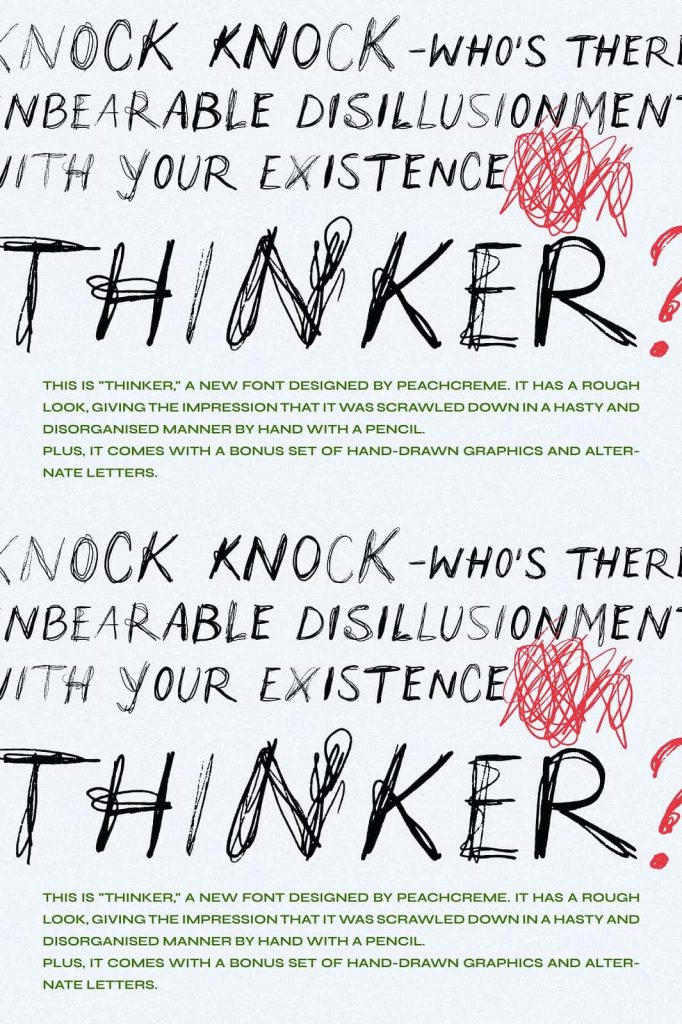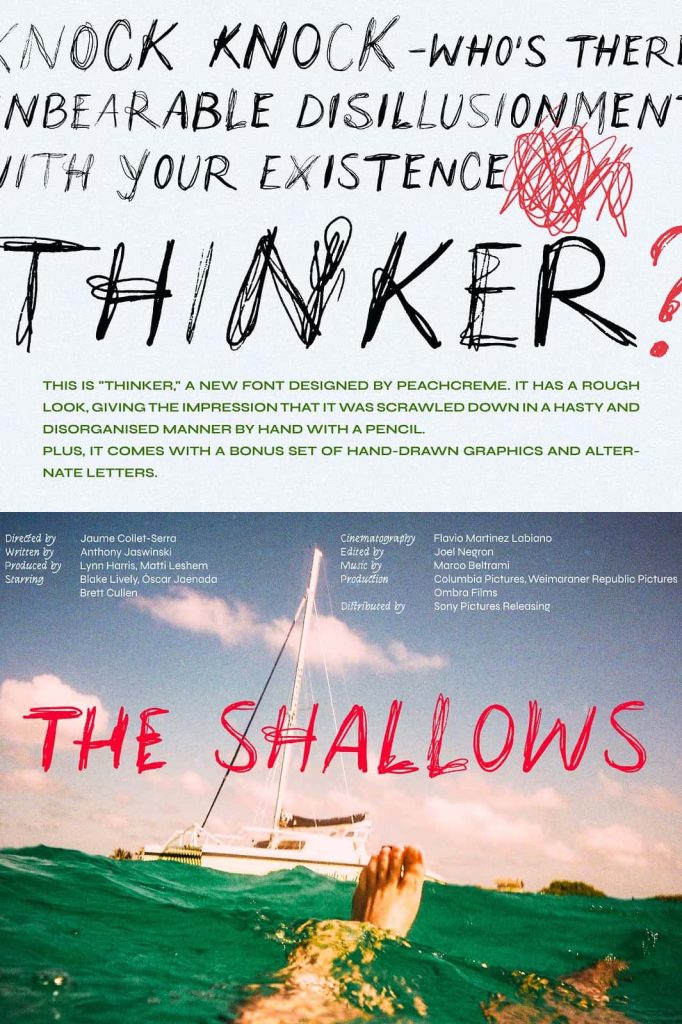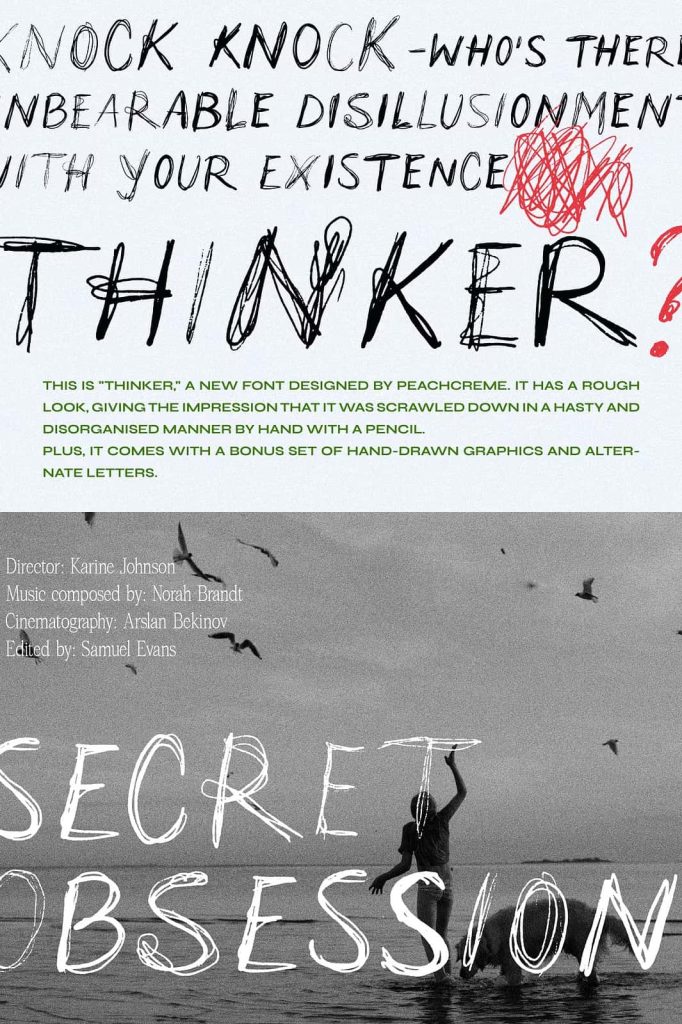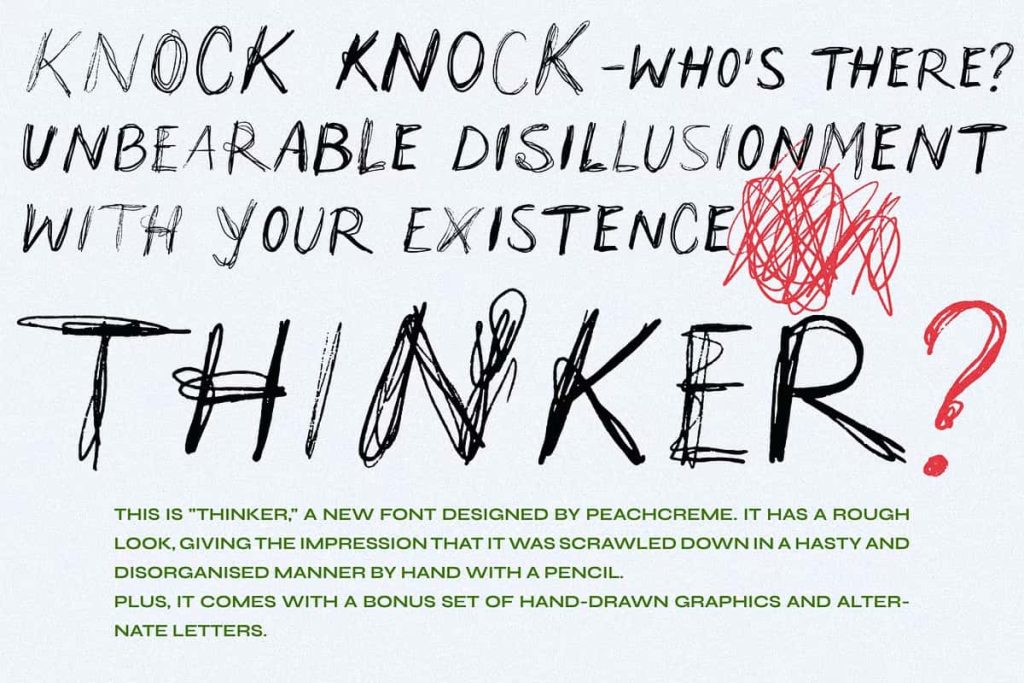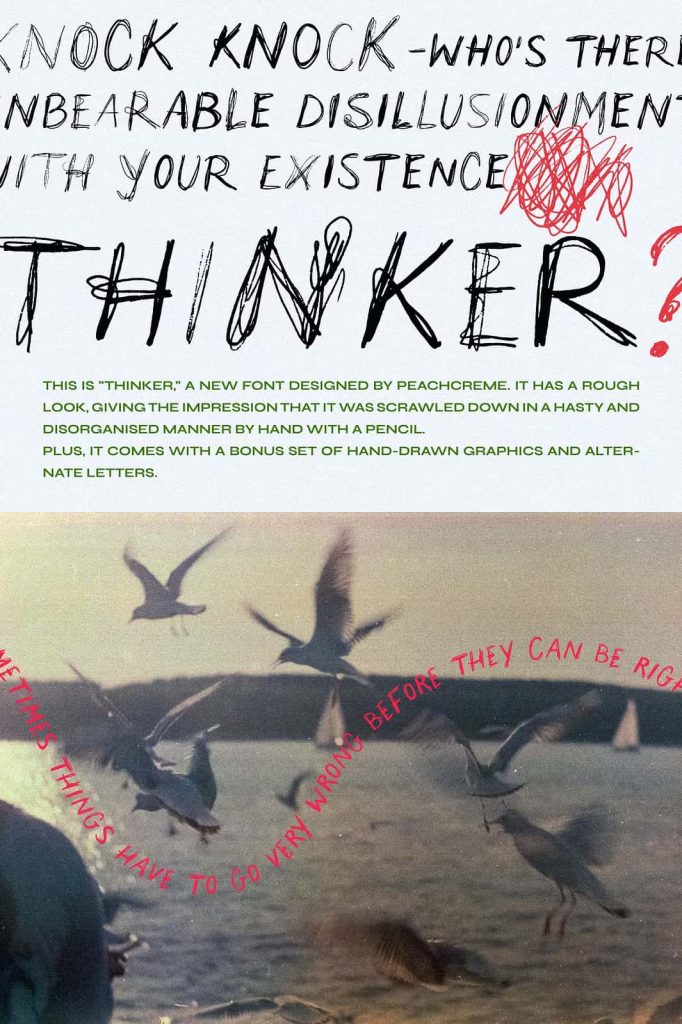
Thinker: A Rough Handwritten Font with Raw Creative Energy
Thinker is a distinctive handwritten font designed by Peachcreme that captures the raw and expressive nature of quick pencil sketches. With its rough and slightly chaotic appearance, this typeface feels as though it was scrawled down in a moment of inspiration. It brings an authentic, human touch to your typography, making it ideal for projects that need personality and creative freedom.
This font embraces imperfection as a design strength. Instead of polished and uniform shapes, Thinker introduces irregular strokes and uneven lines that reflect the spontaneity of hand-drawn lettering. The result is a typeface that feels alive, energetic, and full of character.
Raw Handwritten Style with Pencil Texture
Thinker stands out through its rough, pencil-like texture. Each letter mimics the natural movement of a hand sketching quickly on paper. This gives your text a sense of urgency and authenticity that is difficult to achieve with traditional fonts.
The uneven strokes and slightly disorganized structure create a casual and expressive tone. This makes Thinker perfect for designs that aim to feel personal, artistic, and unfiltered.
Key Features of Thinker
- Rough handwritten style with pencil texture
- Organic and irregular letterforms
- Expressive and energetic visual tone
- Unique character in every glyph
Designed for Creative and Experimental Projects
Thinker thrives in creative environments where structure takes a back seat to expression. Its spontaneous appearance makes it ideal for artistic projects that value originality and individuality. Whether you are working on illustrations, posters, or experimental typography, this font helps you push creative boundaries.
The font’s raw style allows you to break away from conventional design rules. It encourages you to explore new ideas and create visuals that feel bold and unconventional.
Perfect for Artistic Applications
- Creative posters and art prints
- Sketch-style illustrations
- Personal journals and zines
- Experimental typography projects
Includes Alternate Letters for More Flexibility
Thinker comes with a set of alternate letters that give you greater control over your typography. These alternates allow you to vary the appearance of repeated characters, making your text look more natural and less repetitive. This feature enhances the hand-drawn feel and adds depth to your designs.
By mixing standard and alternate characters, you can create compositions that feel dynamic and unique. This flexibility helps you maintain visual interest across different design elements.
Benefits of Alternate Characters
- Increased variation in typography
- More natural handwritten appearance
- Enhanced creative control
- Reduced repetition in text design
Bonus Hand-Drawn Graphics for Added Creativity
In addition to the font itself, Thinker includes a collection of hand-drawn graphics that complement its style. These elements allow you to expand your designs without needing external resources. The graphics share the same rough and sketch-like quality, ensuring consistency across your work.
You can use these extras to add visual accents, create compositions, or enhance storytelling within your designs. They provide a complete creative toolkit that supports both typography and illustration.
Included Extras
- Hand-drawn graphic elements
- Sketch-style decorative accents
- Ready-to-use design components
- Seamless integration with the font
Versatile Across Digital and Print Media
Thinker adapts well to both digital and print applications. Its bold and textured appearance ensures visibility in large formats such as posters and banners. At the same time, it can add character to smaller design elements when used thoughtfully.
This versatility makes it a valuable tool for designers working across multiple platforms. Whether you are creating social media content or printed artwork, Thinker maintains its expressive quality.
Recommended Uses
- Social media graphics and content
- Posters and promotional materials
- Branding for creative projects
- Illustration and mixed media design
Bring Authentic Expression to Your Typography
Thinker offers a fresh and unconventional approach to typography. Its rough, hand-drawn style captures the essence of creativity in its purest form. By embracing imperfection, it allows you to create designs that feel genuine and emotionally engaging.
Choose Thinker when you want your work to stand out with bold expression and artistic freedom. It transforms simple text into a powerful visual statement that reflects creativity, spontaneity, and individuality.